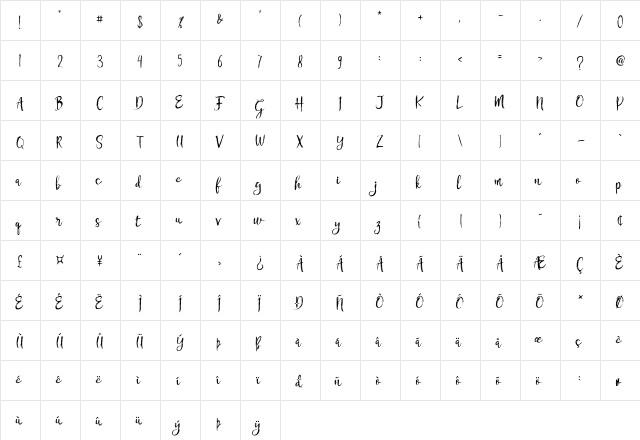
Chamille Regular
Design Context for Chamille Typeface
Chamille is a composed and adaptable typeface that performs quietly and consistently across a wide range of design contexts.